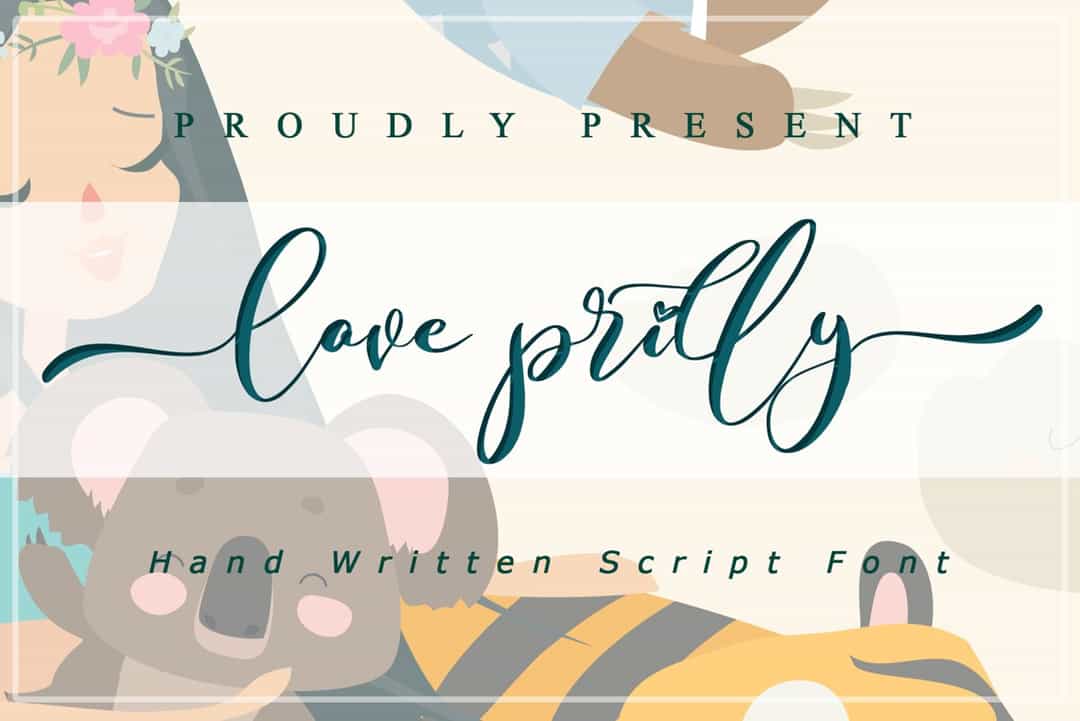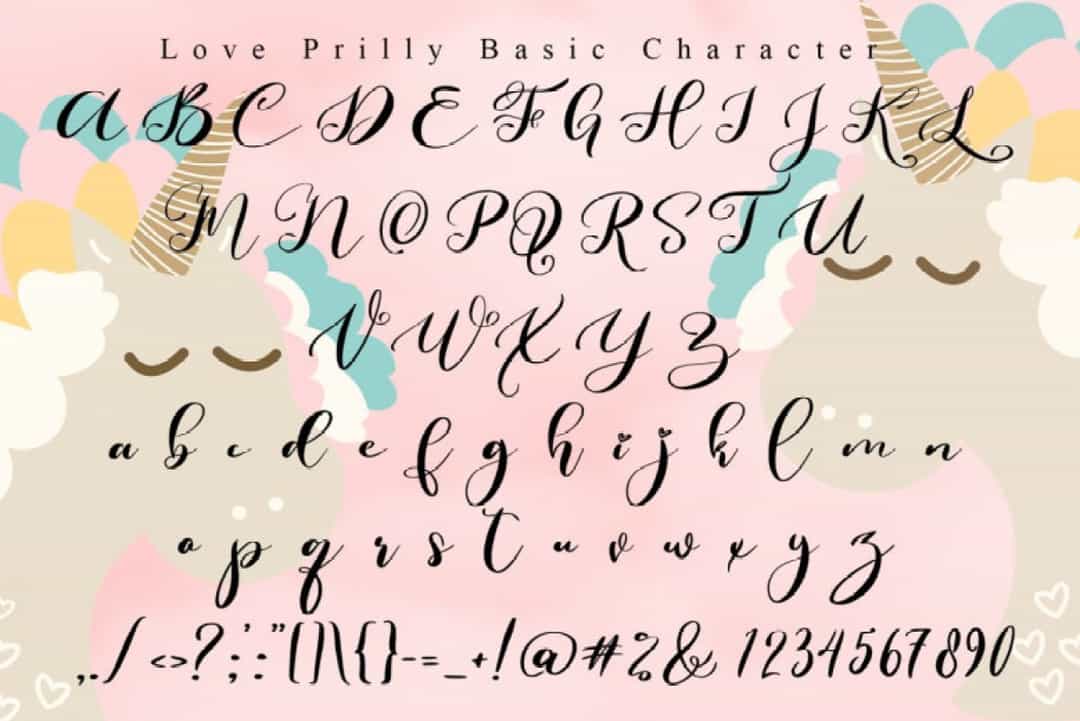
Love Prillyis is an elegant handwritten font with the characters that glides gracefully along the baseline and cursive script handwriting font. Another of its strengths is its beautiful characters that fit well with the beautiful base font and it is recommended for many uses and styles.